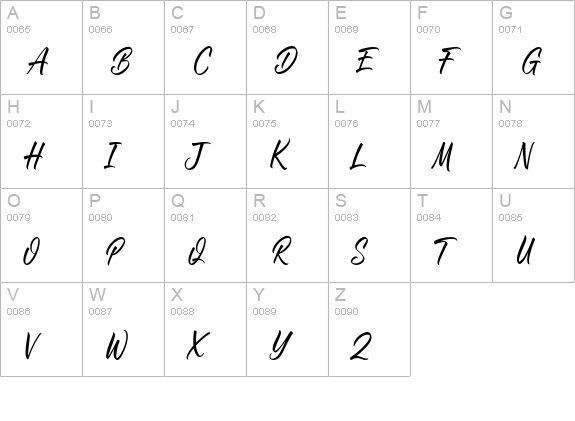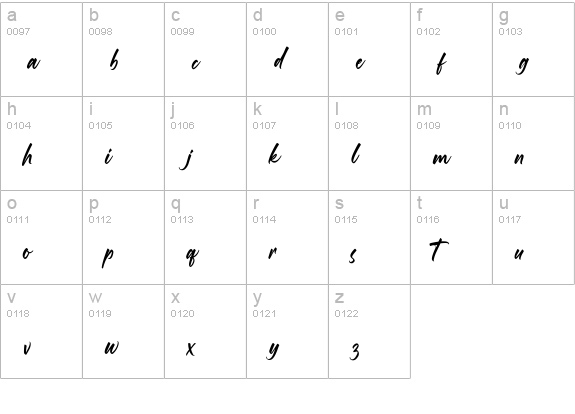
Roasting Script Handwritten Font Font Details
Roasting Script Handwritten Font is a free for personal use font in the Script > Handwritten category, designed by hanzel_space. It has been downloaded 65 times and is available for Windows, Mac and Linux.
Roasting Script Handwritten Font is a charming and elegant typeface that exudes a sense of warmth and creativity. With its flowing strokes and natural hand-drawn appearance, this font is perfect for adding a personal touch to your projects. Whether you're designing invitations, greeting cards, or branding materials, Roasting Script Handwritten Font will bring a unique and inviting feel to your work.